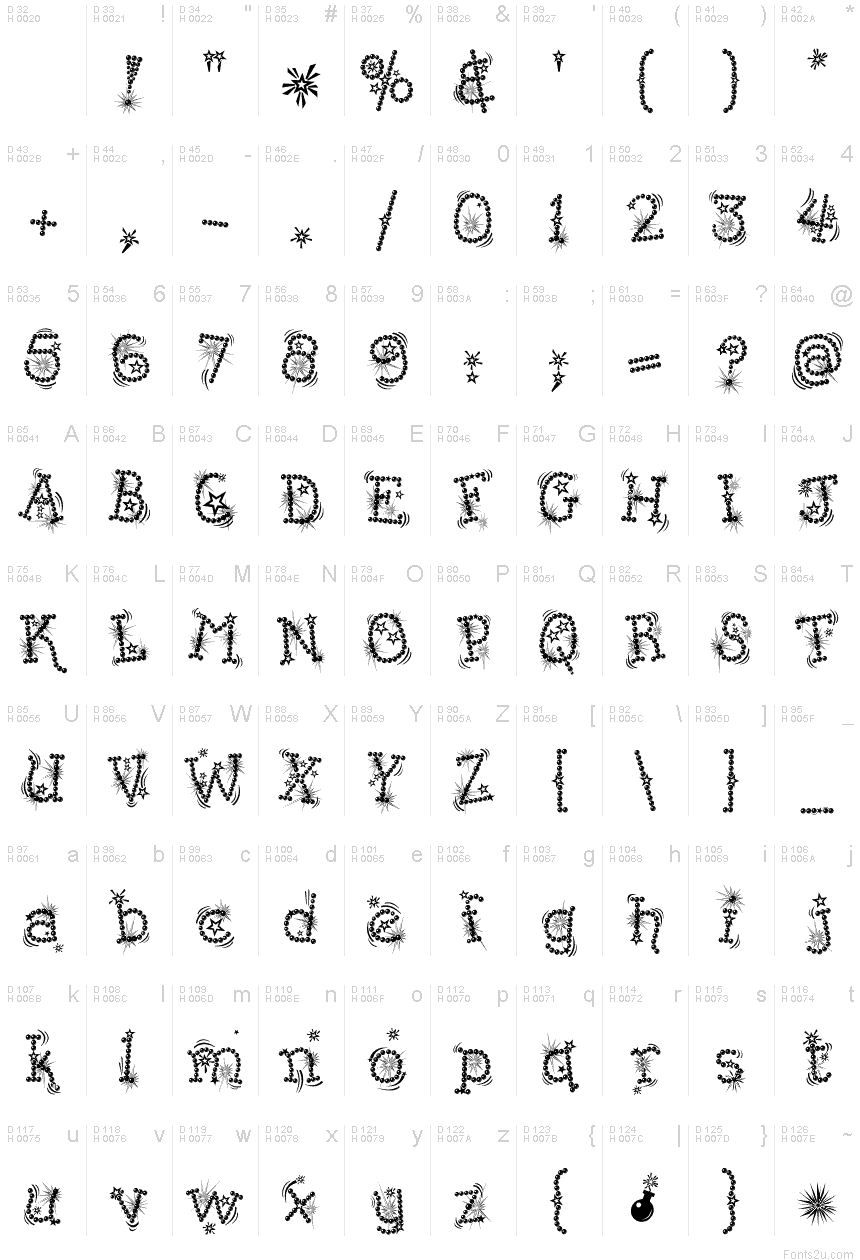
Kingthings Flashbang
Kingthings Flashbang font by Kingthings is a free decorative display typeface that explodes with energy. Each letter is built from glossy black beads, scattered stars, and firework bursts, so the whole word seems to crackle and fizz on the page. It has a handmade, slightly chaotic rhythm that feels like confetti in motion, giving headlines a loud, joyful shout rather than a quiet whisper.
Using Kingthings Flashbang, you can turn party posters, New Year’s banners, kids’ event flyers, carnival signage, game titles, and birthday invitations into full-on celebrations. This free font shines when used big and bold, letting the sparkling details stay crisp and readable. For body text, pair it with a clean geometric sans to ground all that visual fireworks while keeping the festive mood intact.